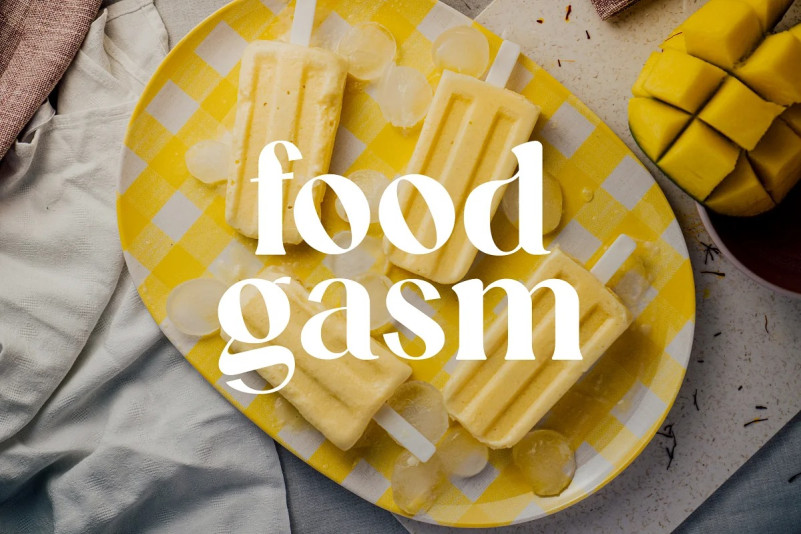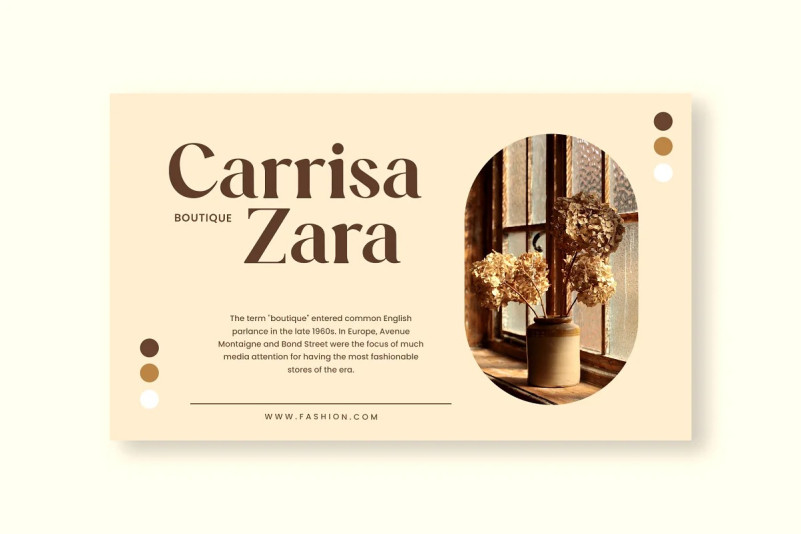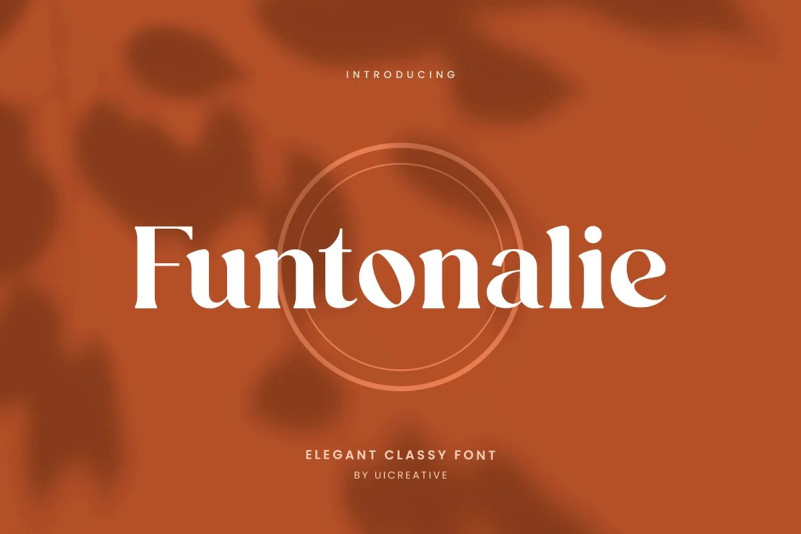
Funtonalie Font
Funtonalie Font – Elegant Serif Font. Modern Serif font that feels beautiful classy, elegant, and modern. This font is ideally suited for a wide variety of projects, stationery, logo, wedding, typography quotes, magazine or book covers, website headers, clothing, branding, packaging design, and more. Also, fashion-related branding or editorial design displays both masculine and feminine qualities.